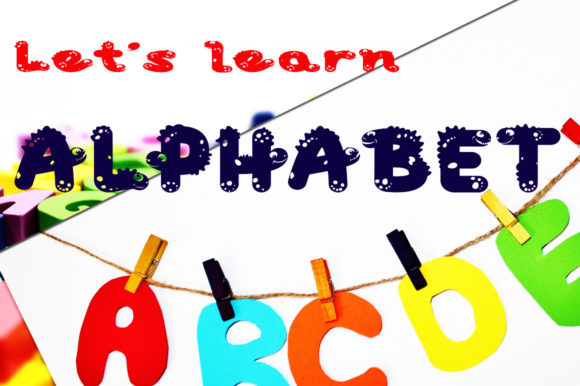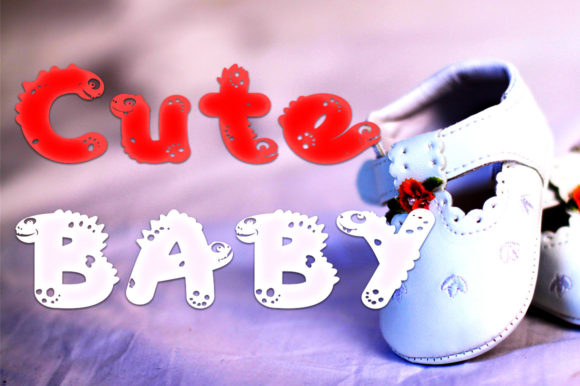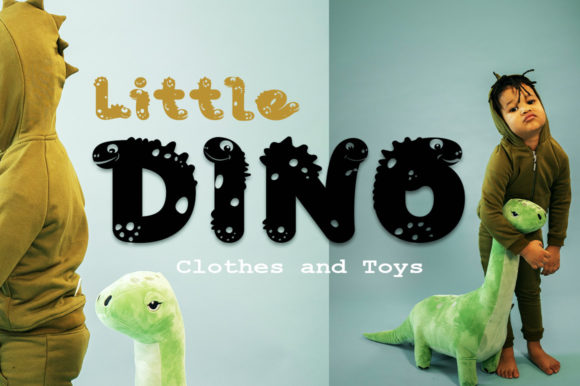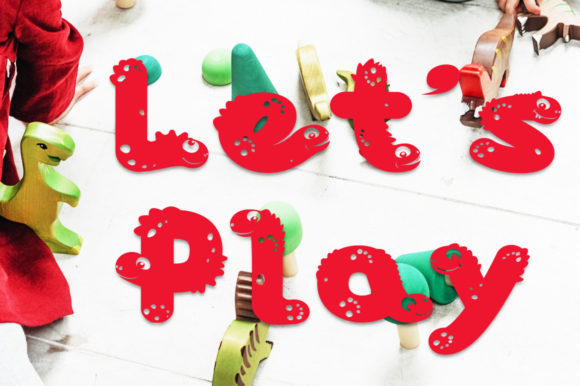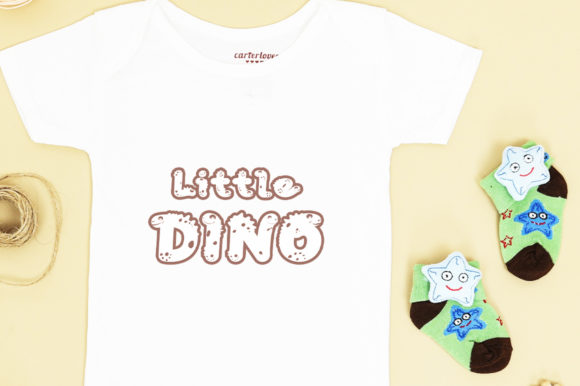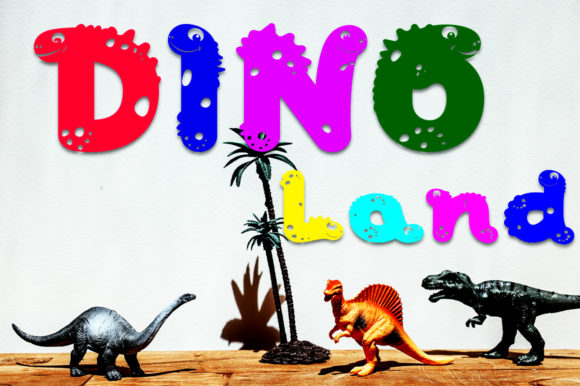
Introduction to Lucky Dino Font
Lucky Dino is a cool display font created especially for kids projects.
Every letter and number in this unique font is inspired by the cartoon dino and children will instantly love it .